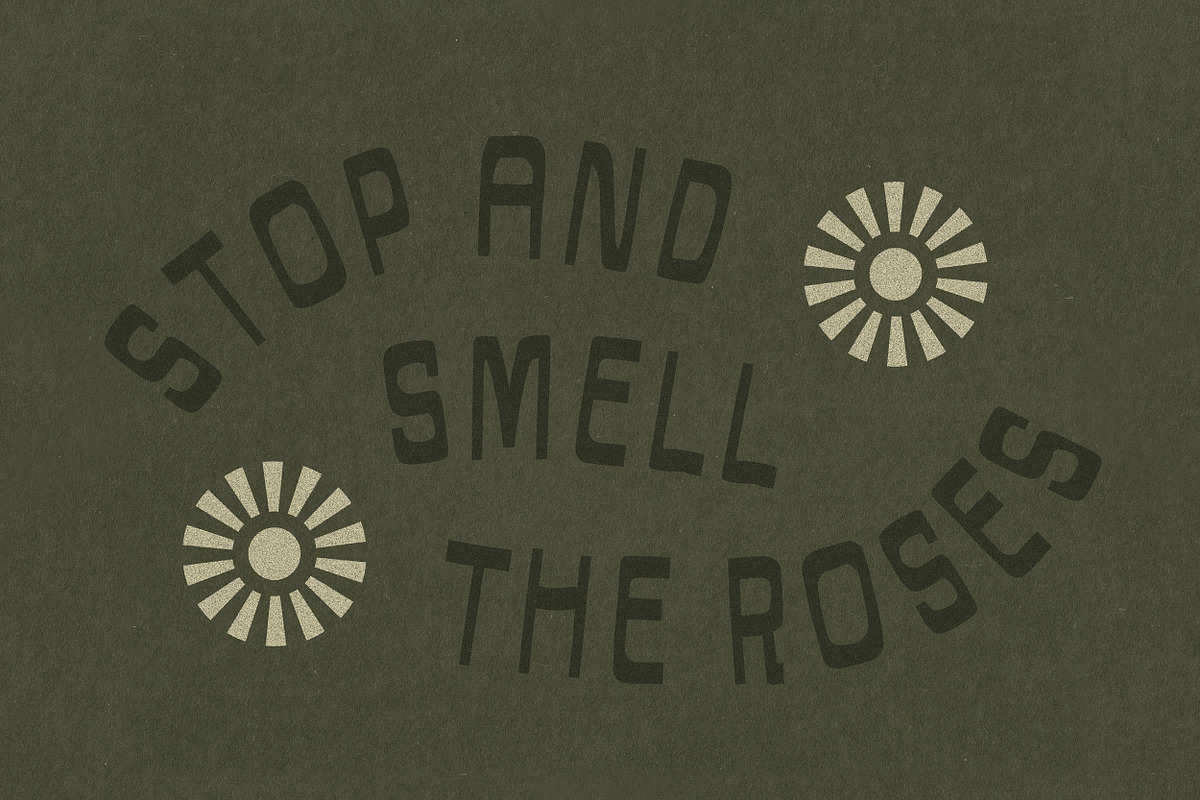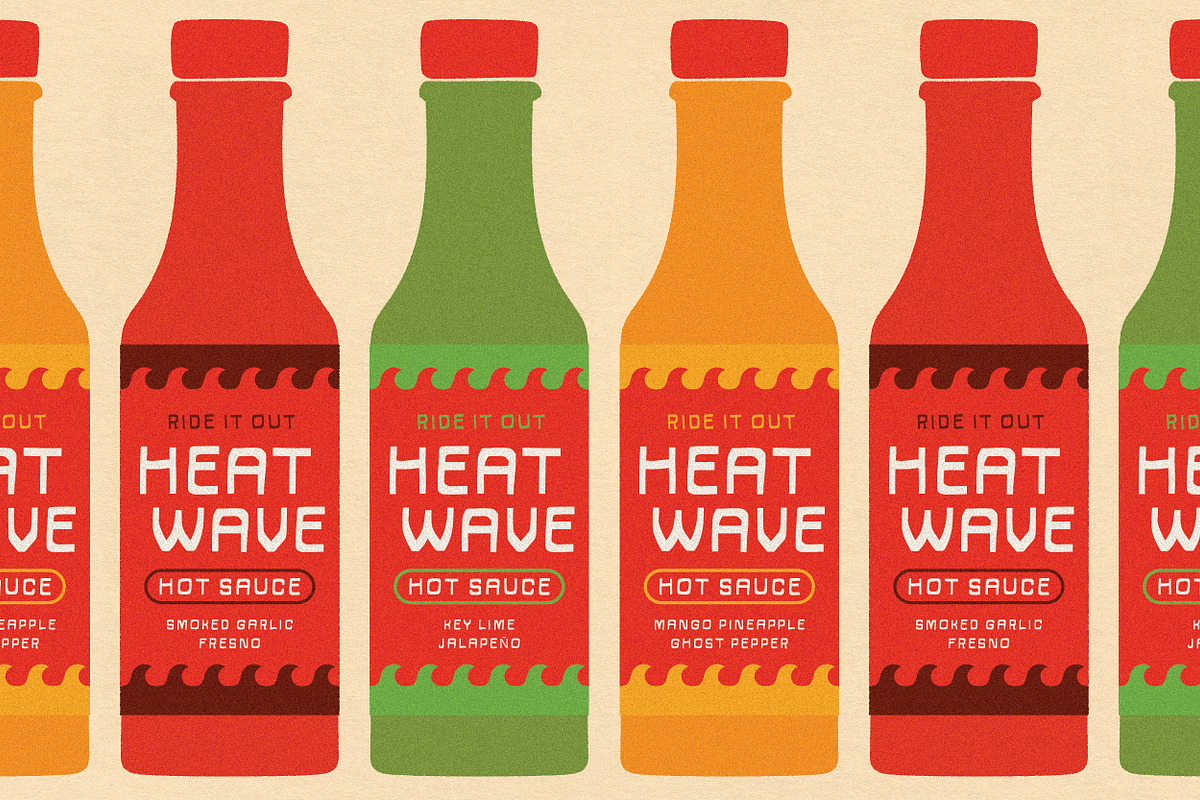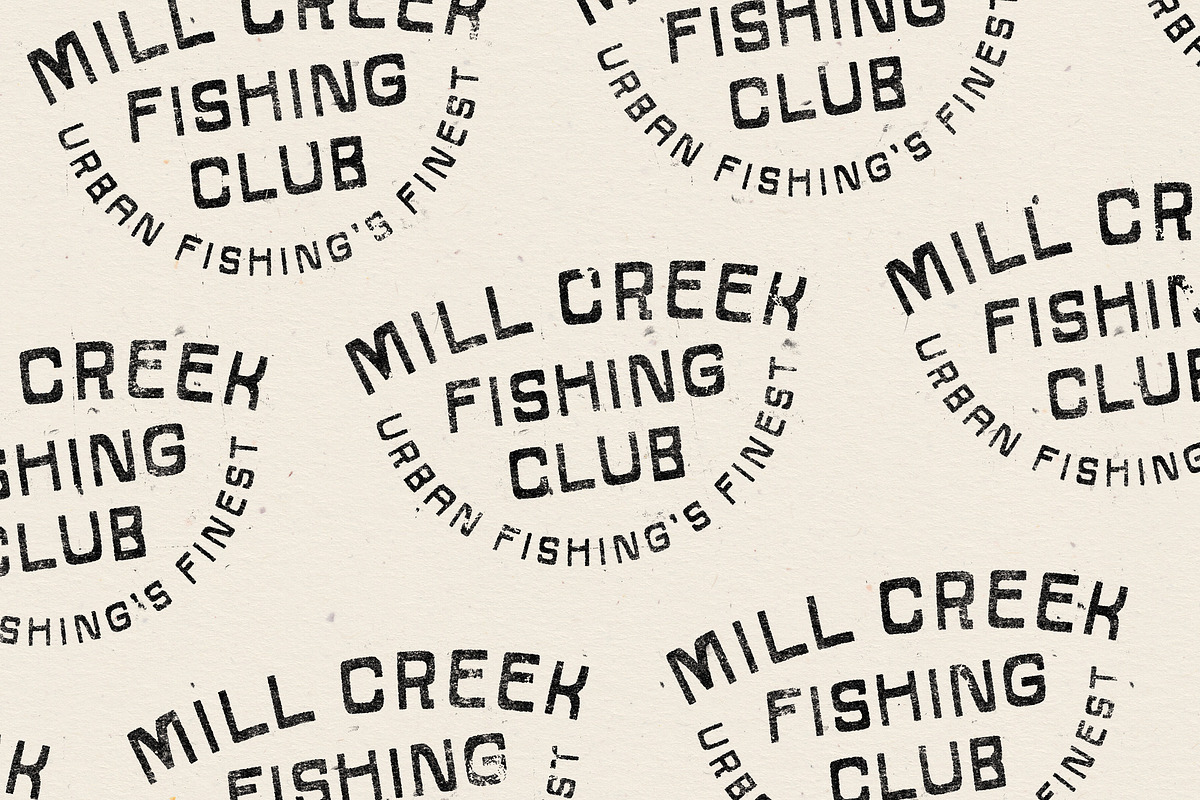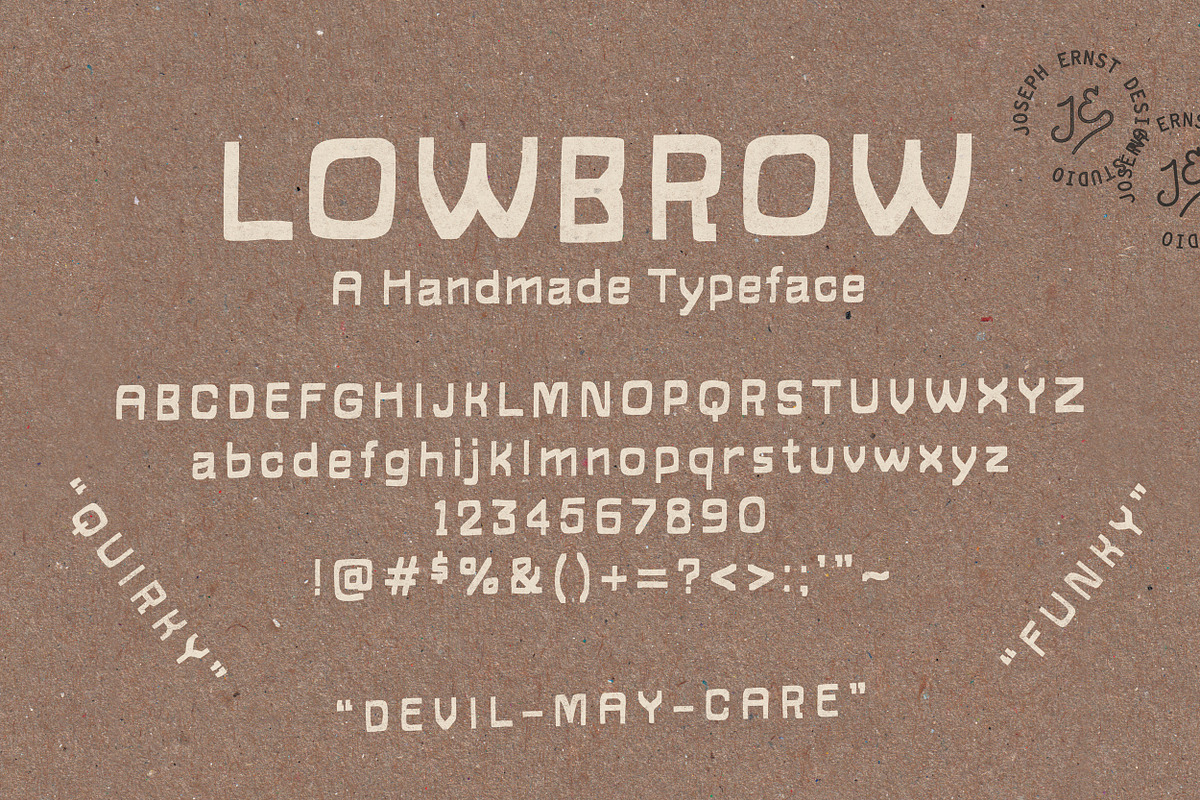
Lowbrow
Introducing Lowbrow: a laid-back, handmade typeface, perfect for your next branding, packaging or merch project. The letterforms lend themselves to distortion, stretching, squishing, and type setting on a curve for an expressive approach.
This quirky, funky font comes with a full set of uppercase and lowercase letters, numbers, punctuation, and basic symbols.